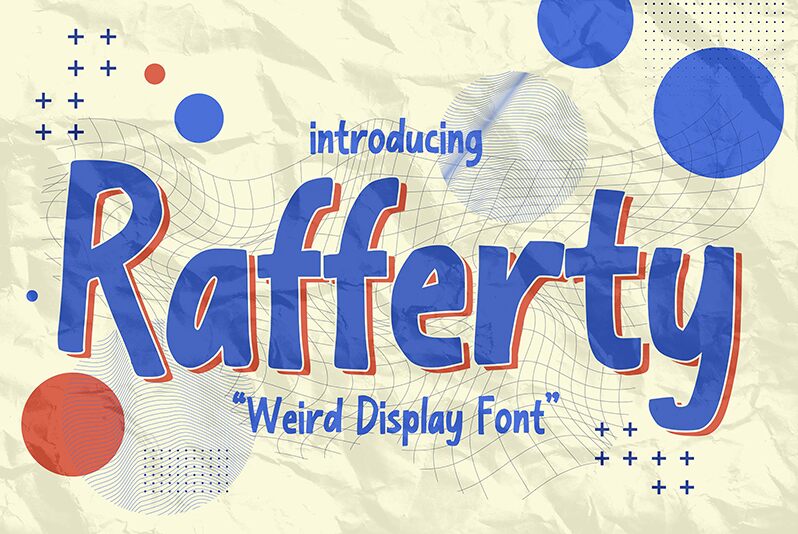
Rafferty
Rafferty bursts onto the creative scene with its semi-condensed, cartoon-inspired flair, a masterpiece forged by the innovative minds at Gassstype. This display font is not just another addition to your typographic arsenal-it's a standout performer, ready to infuse your projects with modern style and dramatic movement. Written with a casual quickness, Rafferty carries an air of authenticity that transforms labels, posters, and branding endeavors into engaging visual statements.
Boasting textured strokes that mimic natural handwriting, Rafferty invites an element of fun and originality to design work. Its versatility shines in applications ranging from eye-catching quotes and packaging to digital overlays on photography. With built-in OpenType Alternates glyphs, designers can effortlessly tailor this font's appearance for truly customized outcomes.
Whether you're crafting a vibrant greeting card or sprucing up website elements, Rafferty offers that perfect blend of whimsy and professionalism. Let it elevate your creative projects to new heights where modern charm meets the untamed spirit of handcrafted artistry.